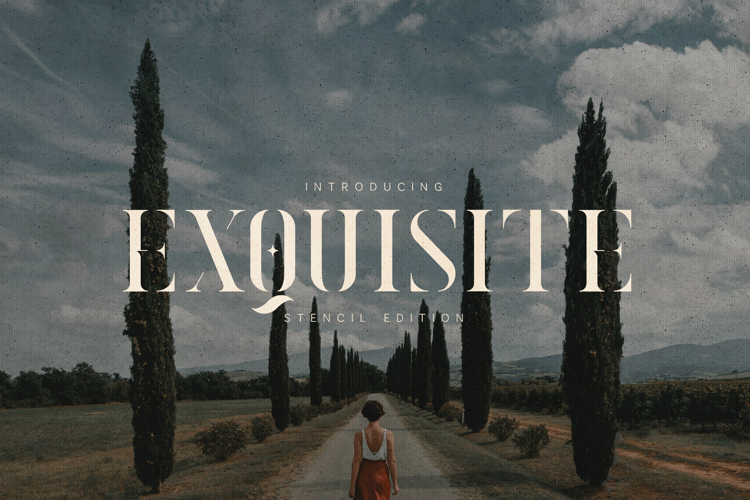
Exquisite Elegant Stencil Serif Font
Exquisite is an elegant stencil serif font crafted for high-end branding and expressive editorial design. With refined proportions, sharp serif details, and distinctive stencil cuts, this typeface blends classic sophistication with a contemporary, artistic edge.
Designed to shine in fashion editorials, luxury branding, book covers, posters, magazines, and premium visual identities, Exquisite delivers a strong emotional presence while remaining timeless and readable. Its unique stencil construction adds character and atmosphere, making it ideal for storytelling, lifestyle projects, and refined creative work.
✦ Perfect For- Luxury & fashion branding
- Editorial & magazine design
- Book covers & posters
- Wedding & invitation design
- Lifestyle & cultural projects
- Artistic and premium typography